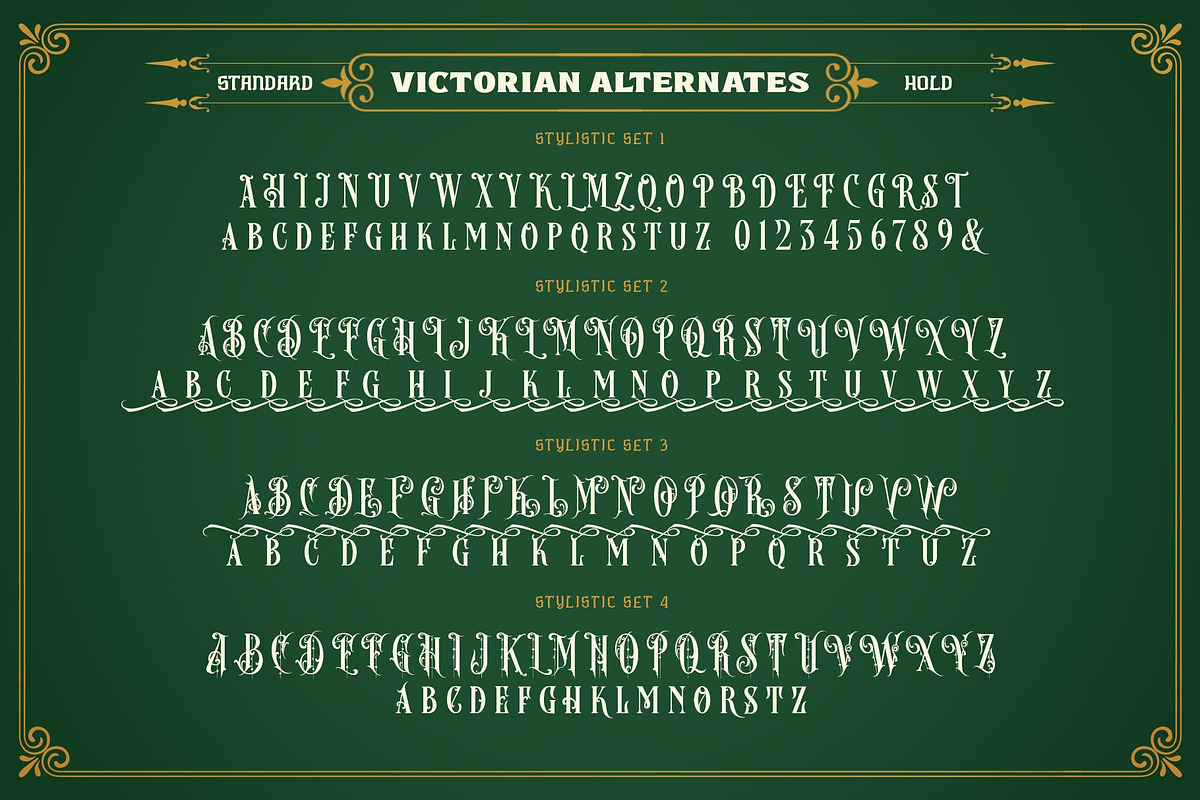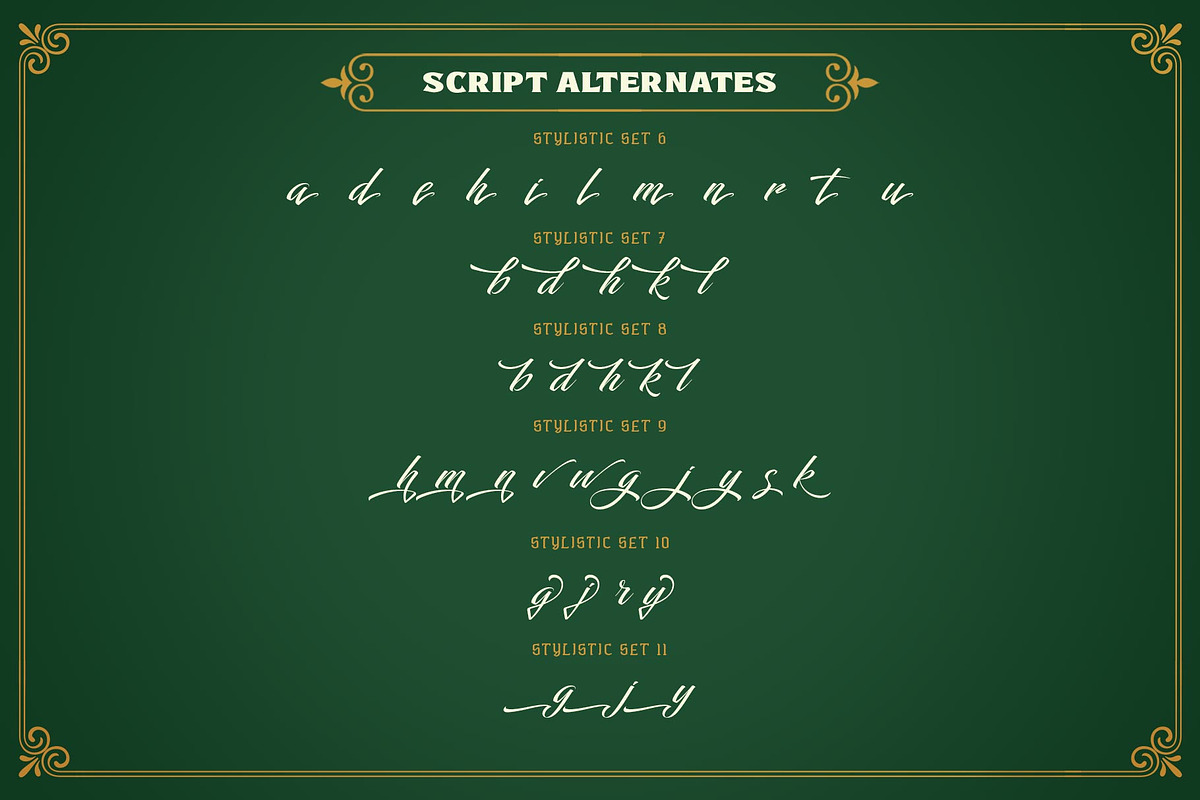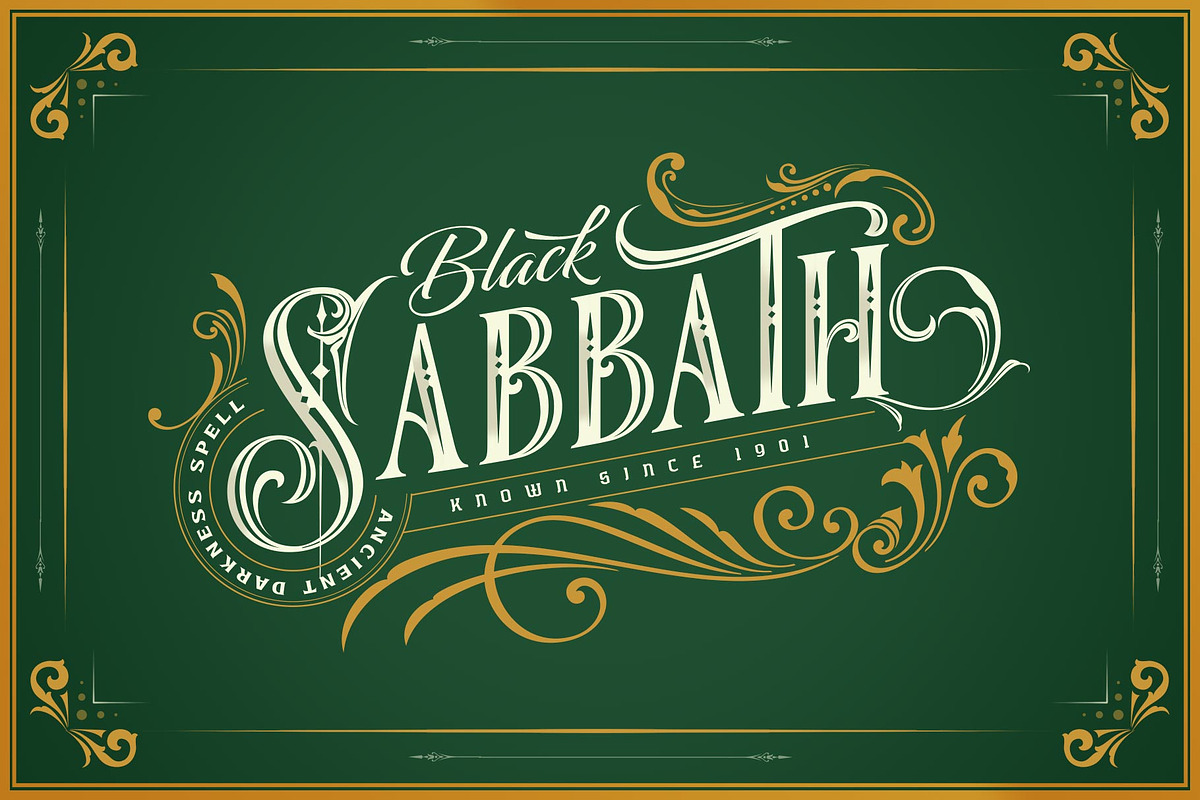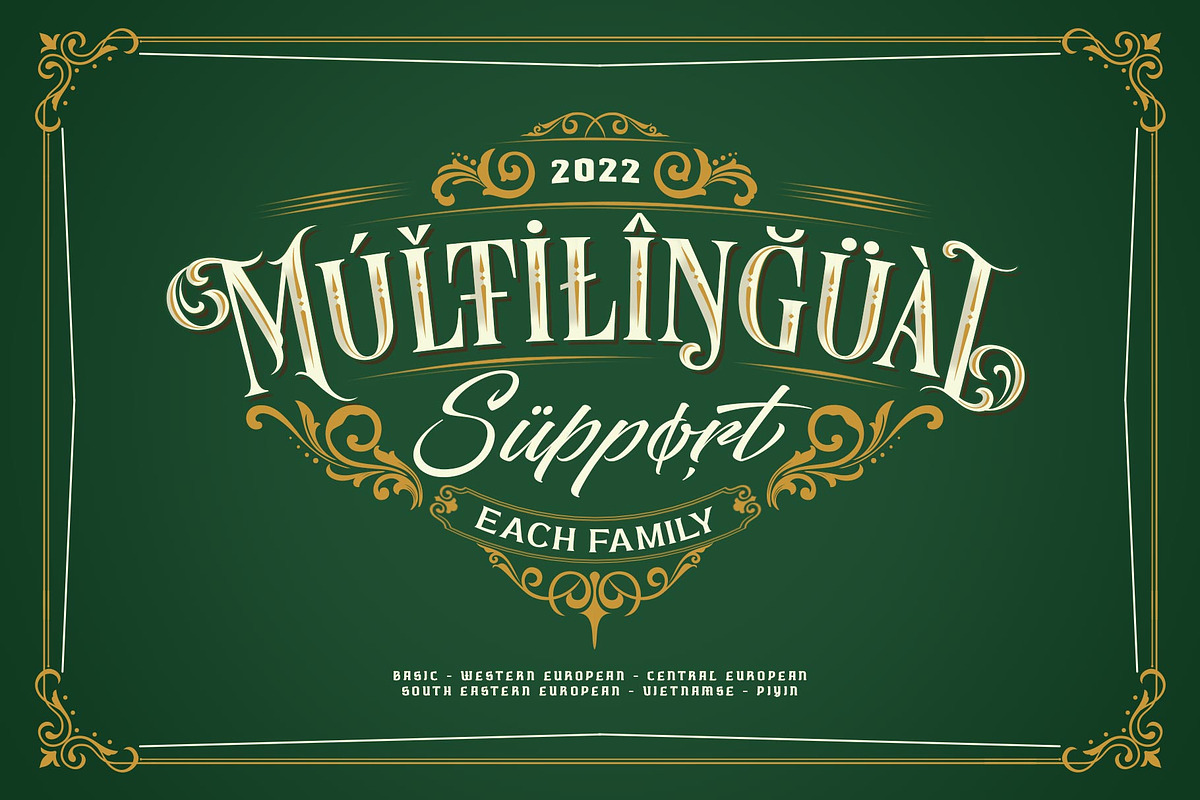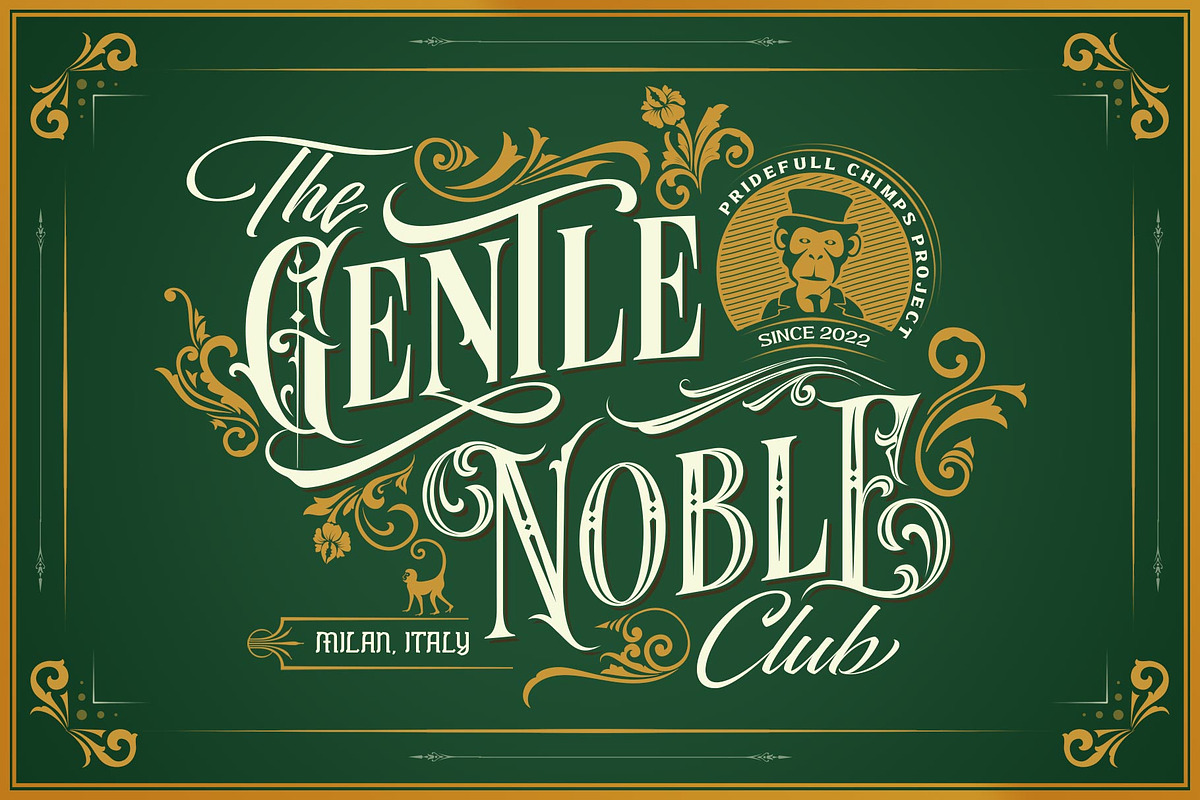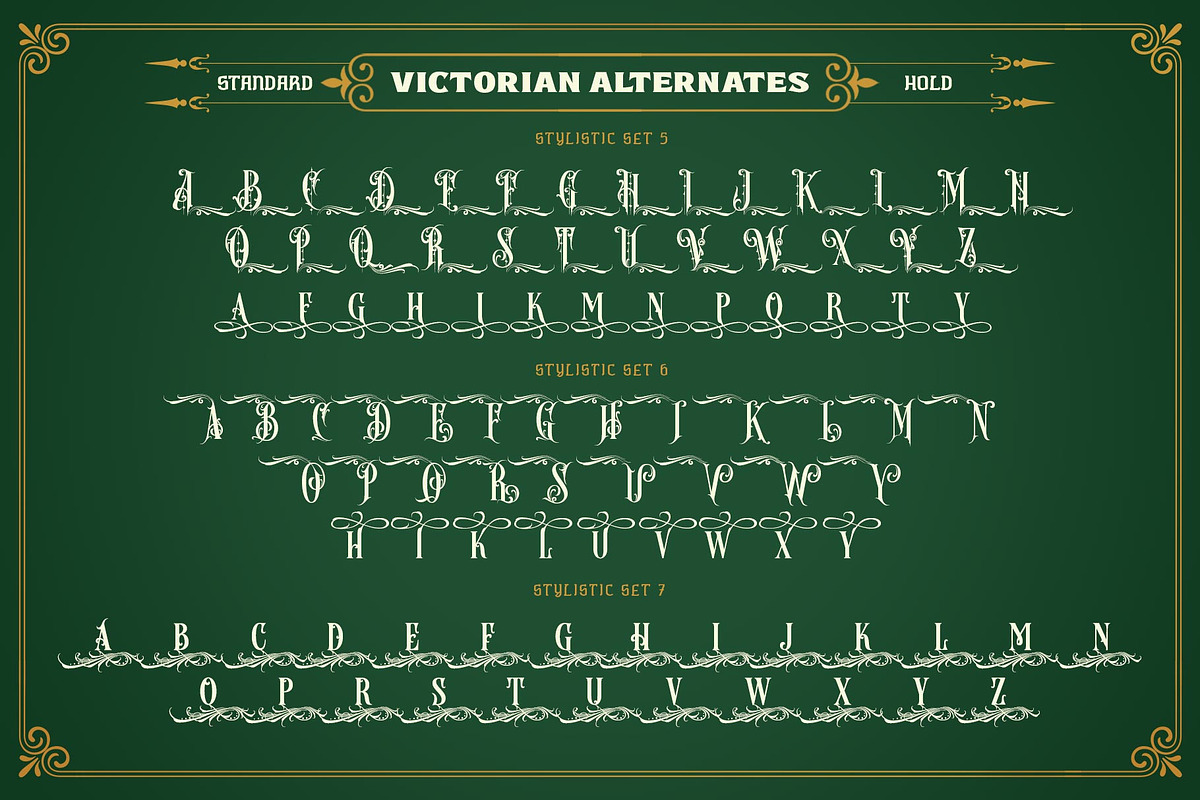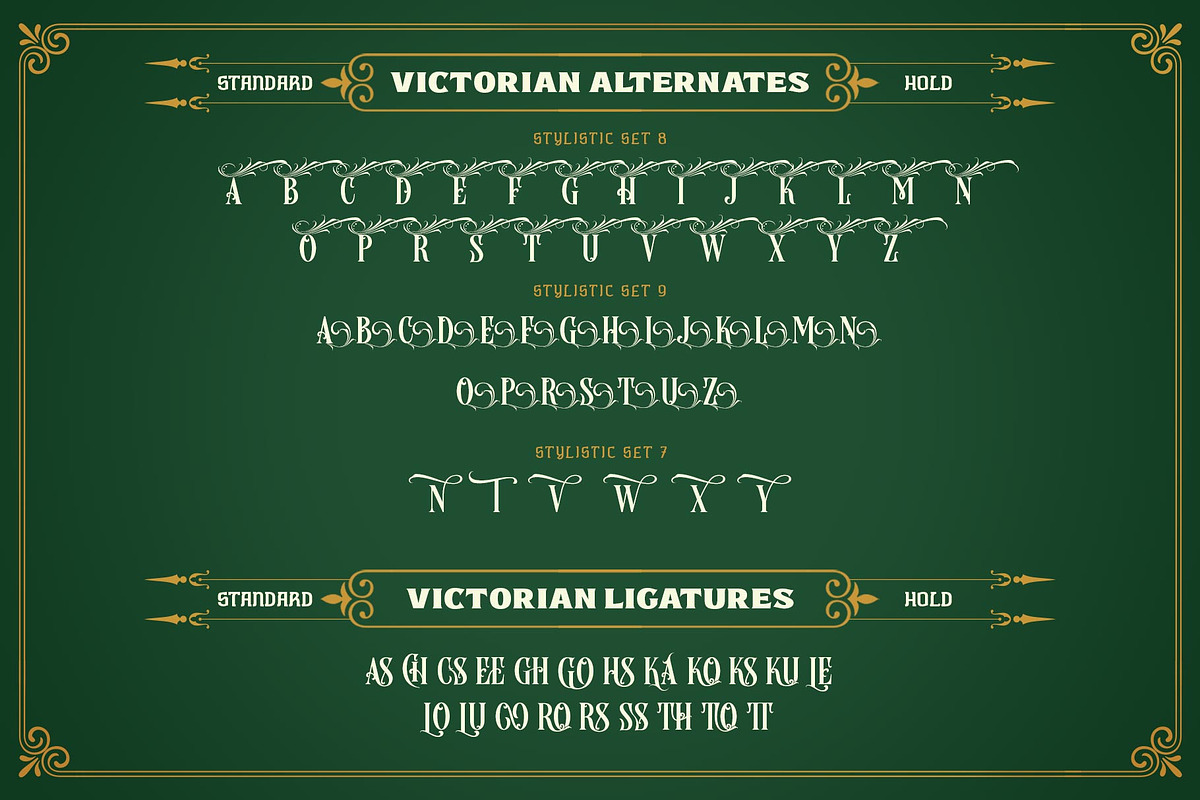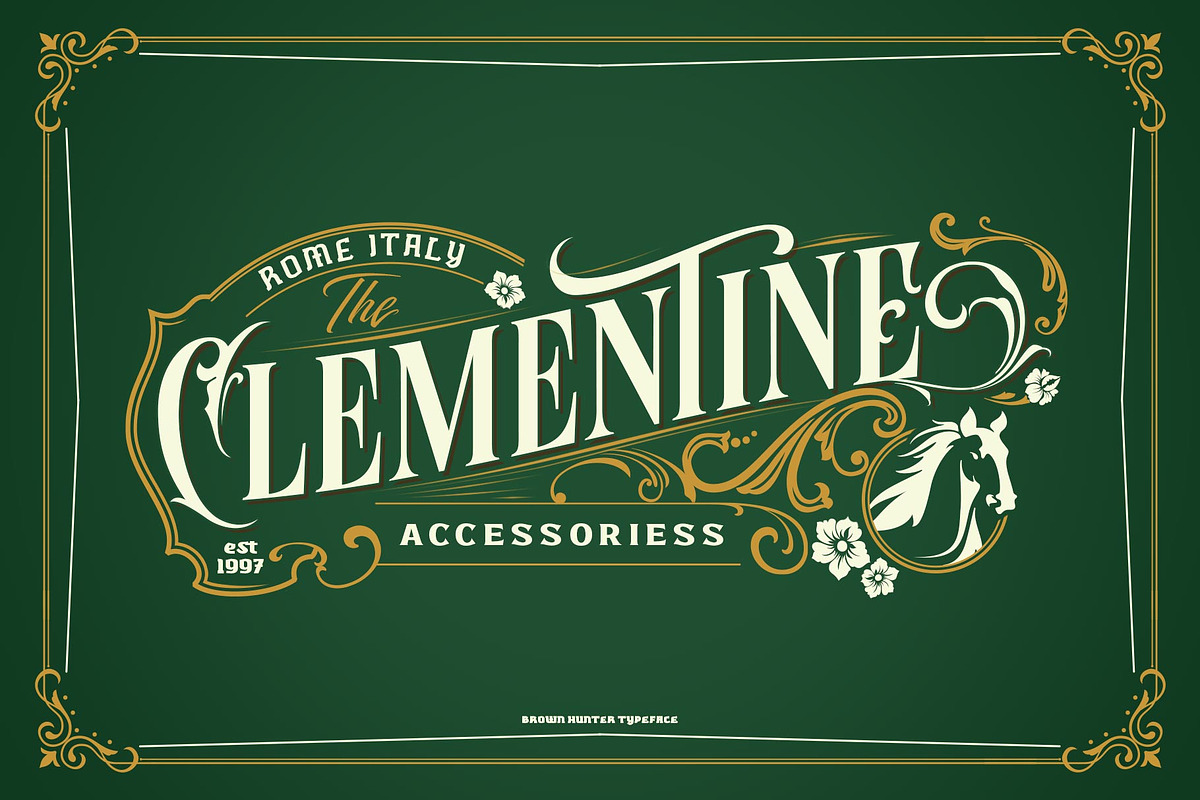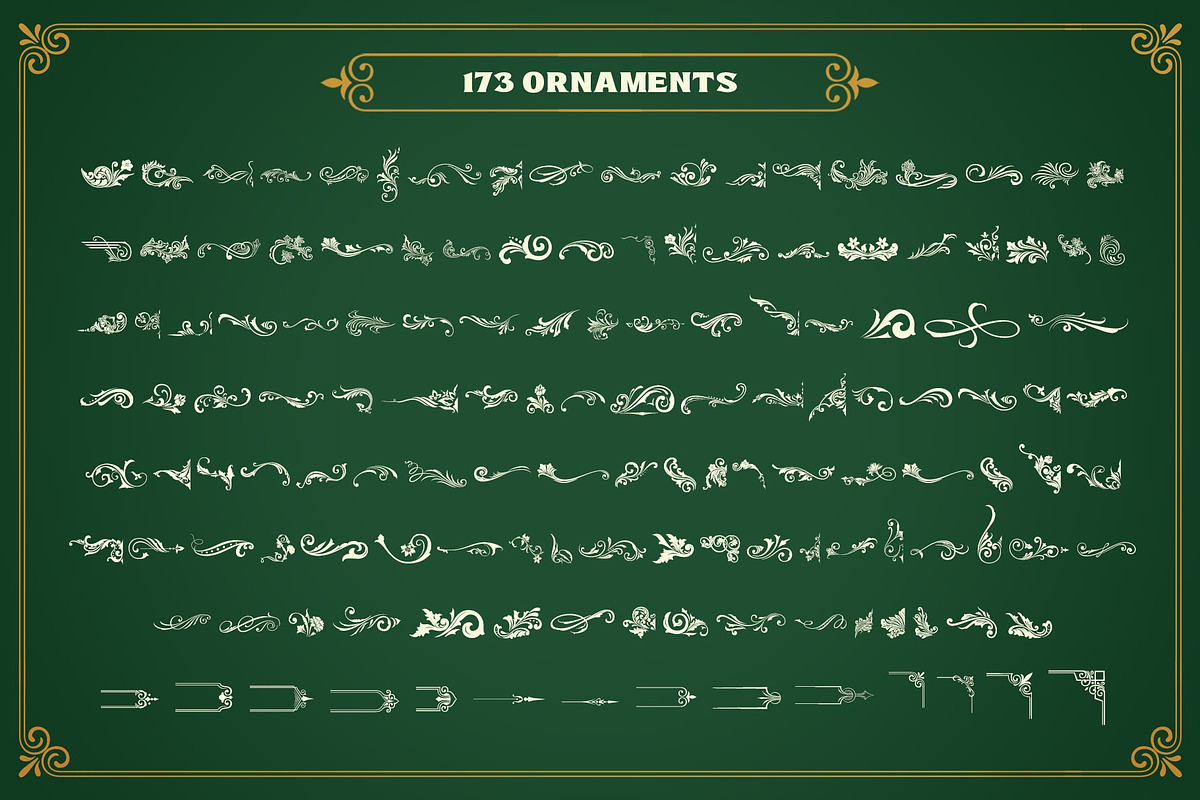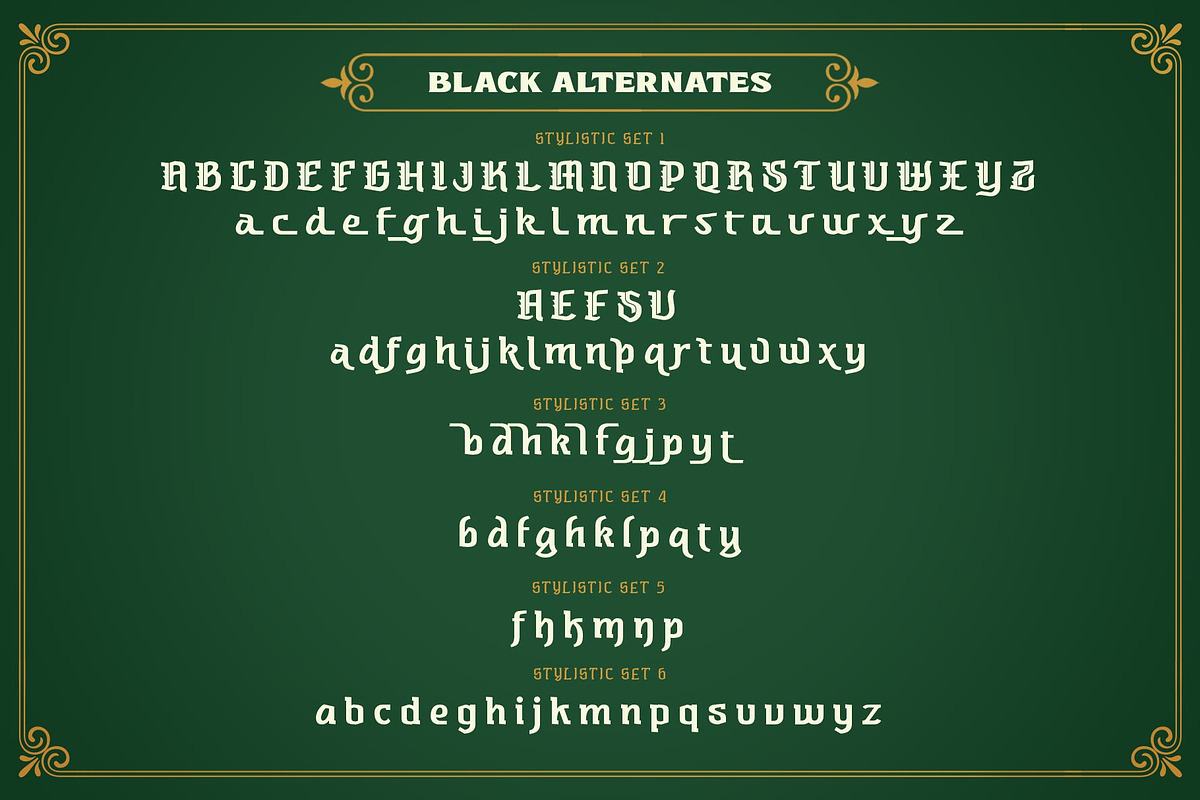
Brown Hunter Victorian Set
Brown Hunter Inspired by the design style of the 1830s, the elegant Victorian style design is full of charming sharp curves. Designs with a classic Victorian style from the cruel era, people always use it for redesigning needs or creating new designs.
The Brown Hunter typeface is designed in an elegant Victorian style which contains many font characters which when combined will make an attractive design and of course very cool. Included in the download package are:
- Brown Hunter Vic, which is a classic Victorian serif style and contains swash and alternatives, there are two types of Brown Hunter Vic, the standard one and the hold one, which contains ornaments on the inside of the body.
- Brown Hunter Script is an elegant street writing style made with spontaneous and sharp brush strokes giving a bold impression.
- Brown Hunter Dis is a Serif display style font that is intended for subtitles in designs, besides this font has 13 families from thin to heavy.
- Brown Hunter Black is a font with a charming black letter style and is still comfortable to read when used for body text in a classic Victorian style. This font also has 13 families from thin to heavy so it can be used for headers or body text.
- Brown Hunter Ornament is a font made with a unique orament shape in the classic Victorian style, besides that there are also border frames, animal vectors, silhouette logos, flowers and many more.
With 4 styles and 30 different fonts, the Brown Hunter typeface when combined will create a cool design and a Victorian concept. By collecting Brown Hunter Typeface you can easily create classic, Victorian and elegant themed designs. Brown Hunter is perfect for designing vodka labels, beer, pomade, logo tattoos, book covers, t-shirts and so on.